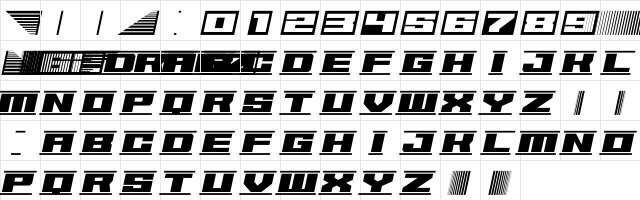
62DRAGZ Regular
| Foundry | Youssef Habchi |
| Designer | Youssef Habchi |
Design Context for 62DRAGZ Typeface
62DRAGZ is a composed and adaptable typeface that performs quietly and consistently across a wide range of design contexts.